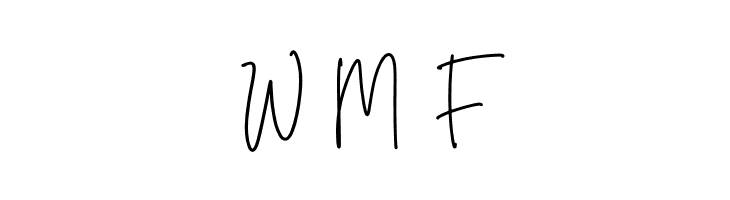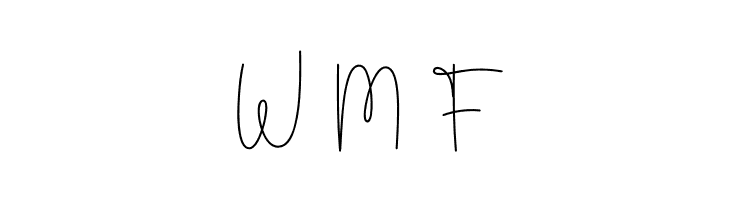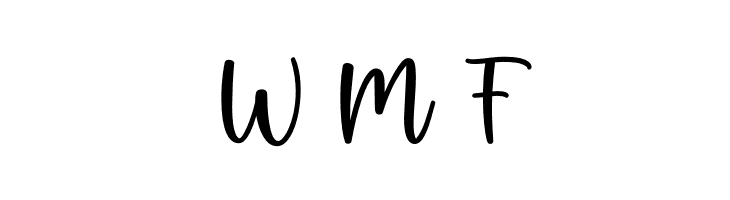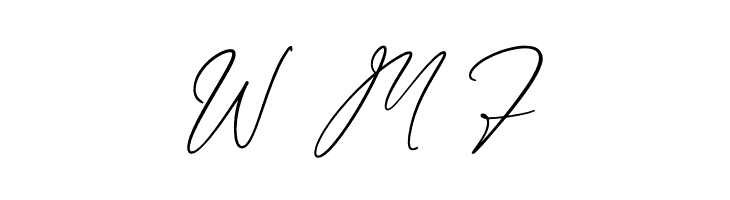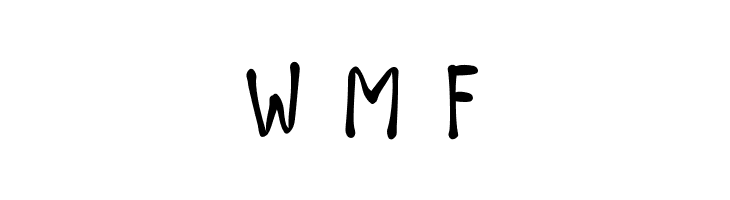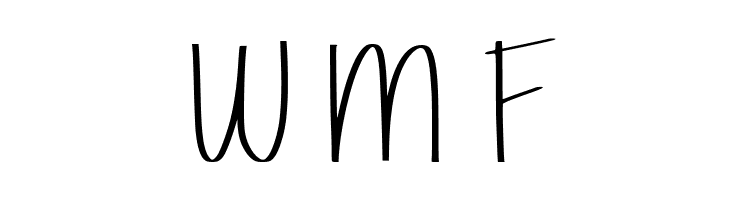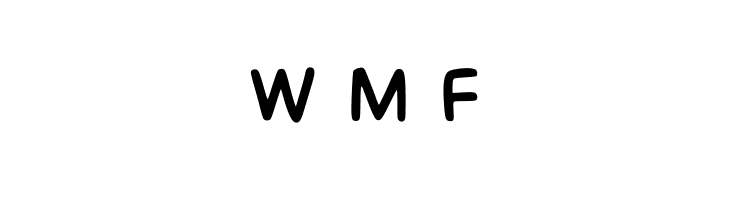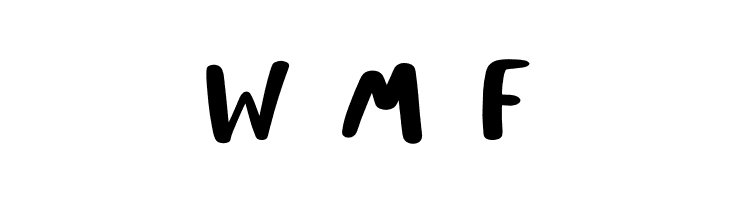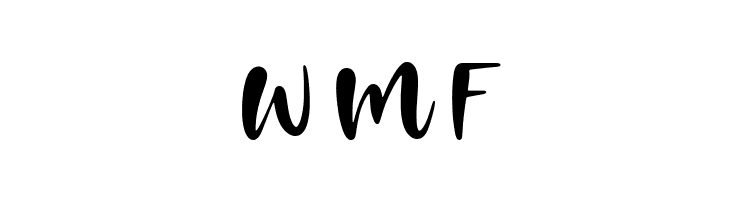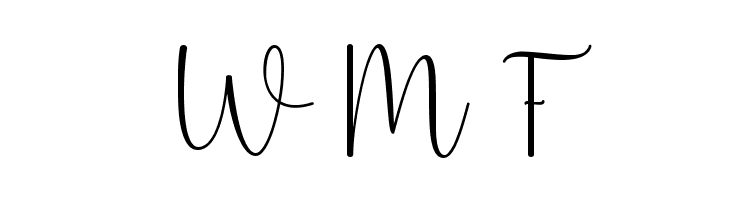
A rounded, handwritten style font suitable for informal and playful designs.
A delicate, cursive handwritten font suitable for invitations and personal projects.
A fine, cursive handwritten font with elegant, flowing lines.
A stylish, cursive handwritten font with a smooth, flowing appearance.
A delicate, handwritten cursive font suitable for personal and creative projects.
A handwritten, casual script font with a playful and informal style.
A casual, handwritten cursive font with playful, flowing characters.
A casual, handwritten font with rounded, irregular characters.
A handwritten, casual font with rounded, irregular characters.
A cursive, handwritten script font with a light, flowing style.
A casual, handwritten font with rounded, irregular characters.
A stylish cursive handwritten font with a casual, flowing script.
A stylish, cursive handwritten font with smooth, flowing lines.
A handwritten, sketchy font with tall, narrow characters and a casual style.
A rounded, handwritten style font suitable for informal and playful designs.
A casual handwritten font with a friendly, playful style.
A stylish, cursive handwritten font suitable for personal or decorative use.
A cursive, handwritten script font with elegant, flowing lines.
A graceful, cursive handwritten font with a light and airy feel.
A stylish, cursive handwritten font suitable for elegant and personal design projects.
A casual, handwritten cursive script font with flowing, varied strokes.
A handwritten, cursive script font suitable for informal and creative uses.
A stylish, handwritten cursive font with a light, flowing aesthetic.
A handwritten, cursive script font with a graceful, airy style.
A handwritten, brush-style script font with a casual and lively appearance.
A casual handwritten script font with playful, irregular strokes.
A fun, rounded handwritten font suitable for informal and playful designs.
A casual handwritten font with a playful and friendly style.
A casual handwritten script font with a friendly, playful style.
A whimsical handwritten font with tall uppercase and flowing lowercase characters.